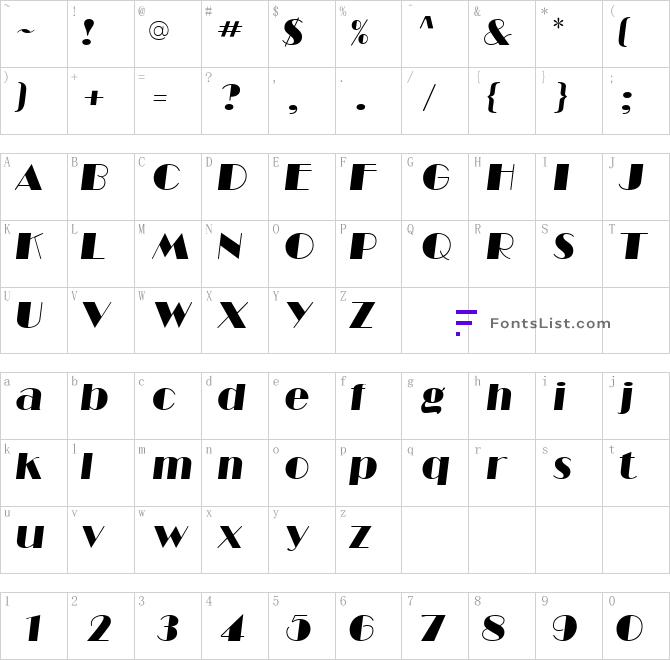
- Font Name:Barbe Display SSi
- Subfamily:FontMonger:Barbe Display SSi Italic
- Full Name:Barbe Display SSi Italic
Barbe-Display-SSi-Italic.ttf is a very beautiful artistic font, Barbe-Display-SSi-Italic.ttf is widely used in the design and printing of various books and pictures,Barbe-Display-SSi-Italic.ttf has a strong visual impact,Barbe-Display-SSi-Italic.ttf is a commonly used font in newspapers, magazines and books, and is used in posters, e-commerce Poster design, store design, logo design, font design and other fields.Barbe-Display-SSi-Italic.